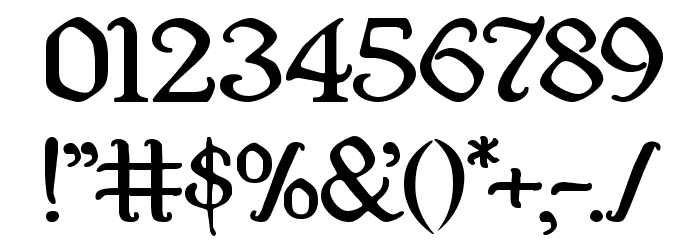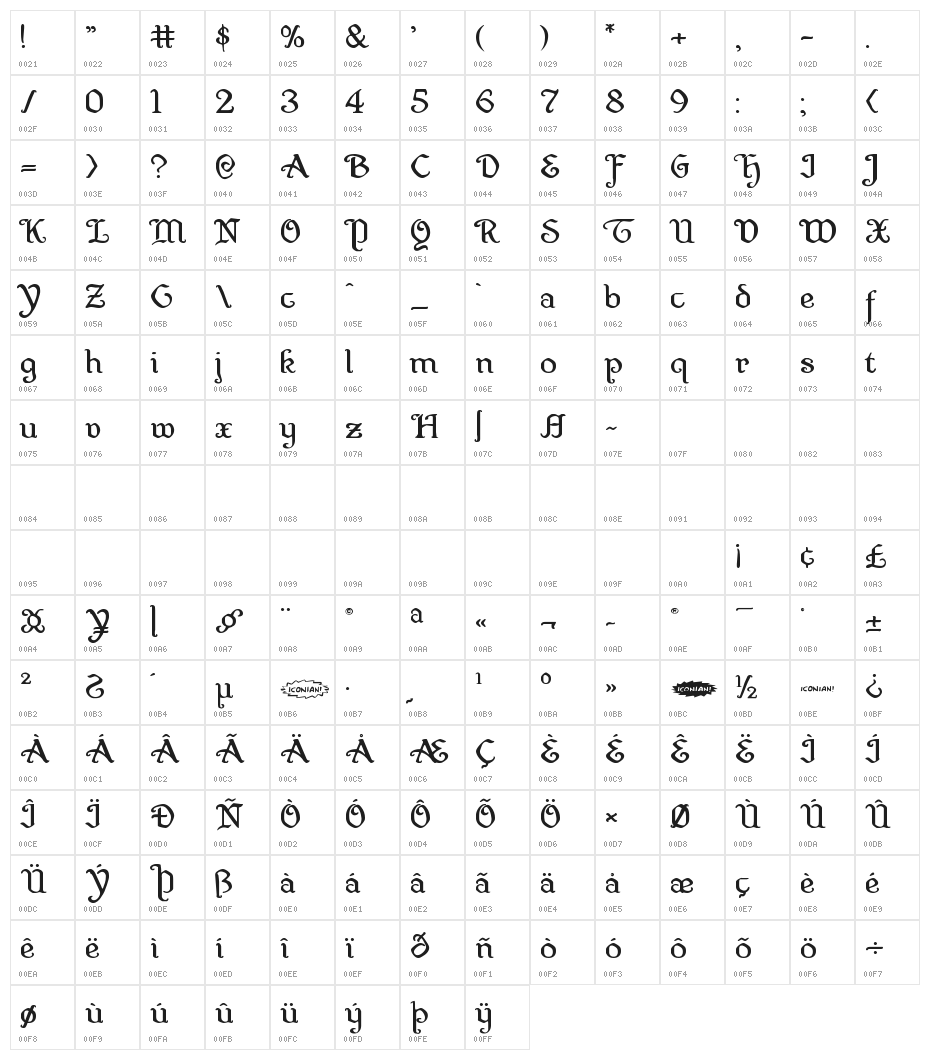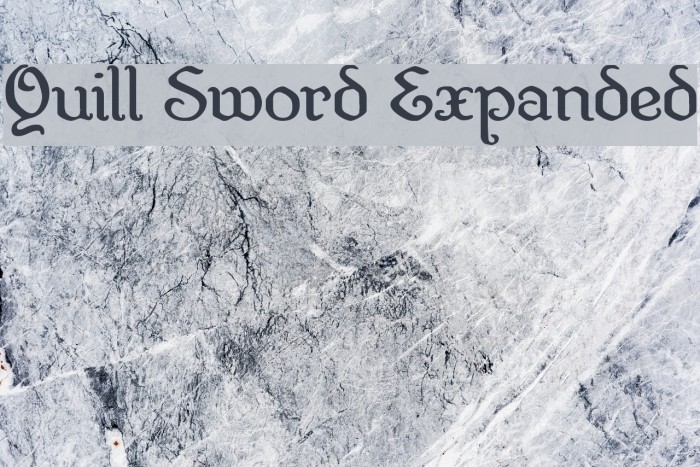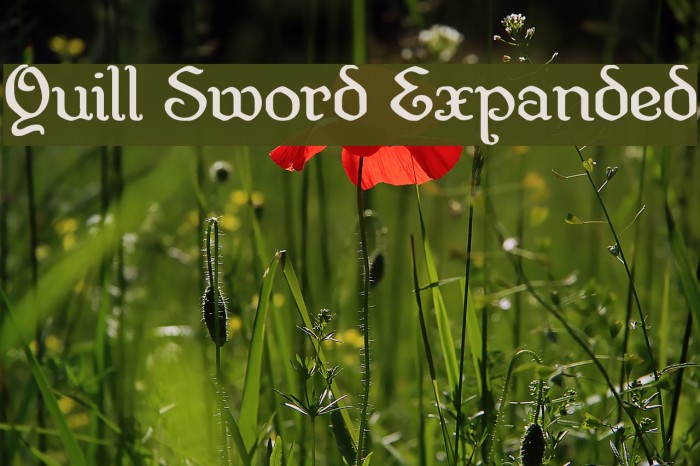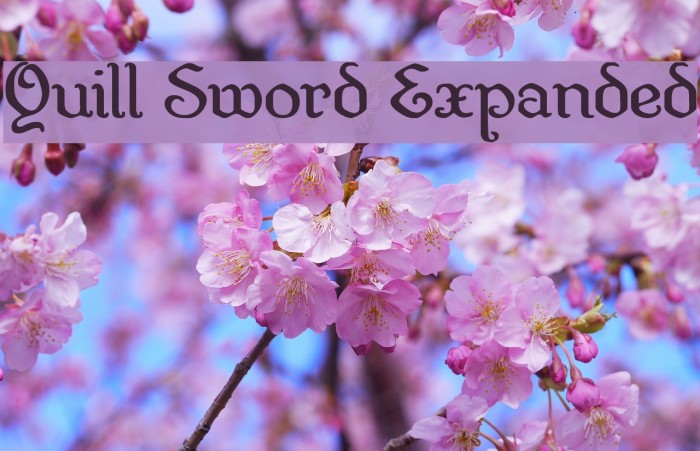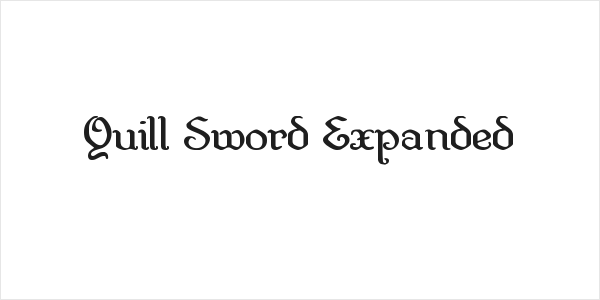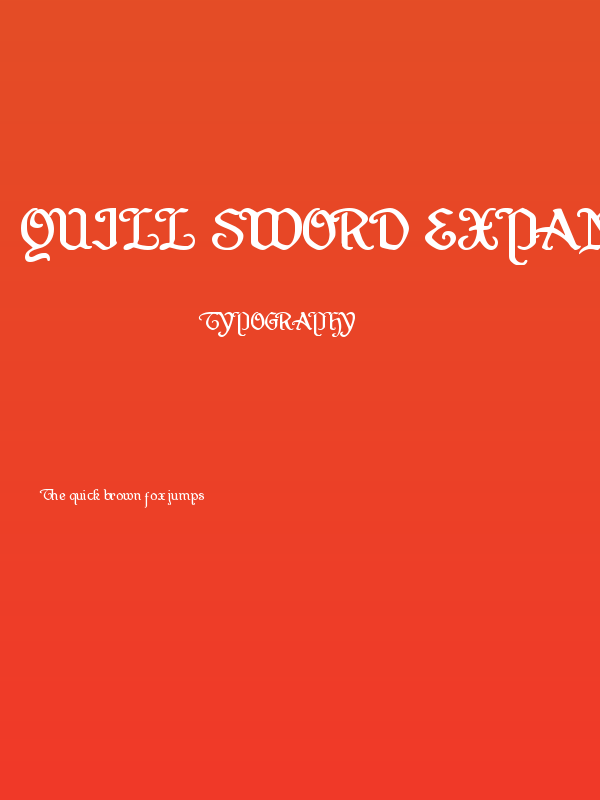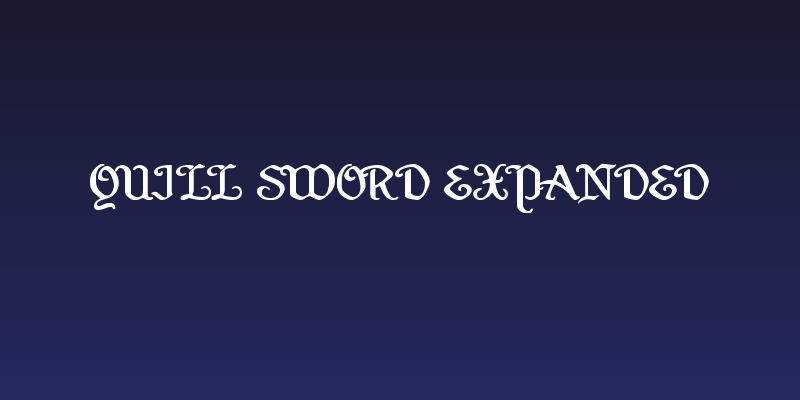
Quill Sword Expanded Font
Quill Sword Expanded Description
This font features a distinct medieval and calligraphic style, characterized by its ornate and decorative elements. The uppercase letters are bold and have a strong presence, with intricate curves and flourishes that give them a regal and historical feel. The lowercase letters maintain a consistent style, with unique loops and strokes that add to the font's elegance. Numbers are designed with a similar flair, ensuring uniformity across all characters. The special characters are equally stylized, making them suitable for decorative purposes. Overall, this font exudes a sense of tradition and artistry, ideal for projects that require a touch of historical or fantasy elements.
| Use Case | Headlines, Logos, Decorative text |
| Proposed Projects | Ideal for fantasy book covers, historical event invitations, themed posters, and decorative signage. |